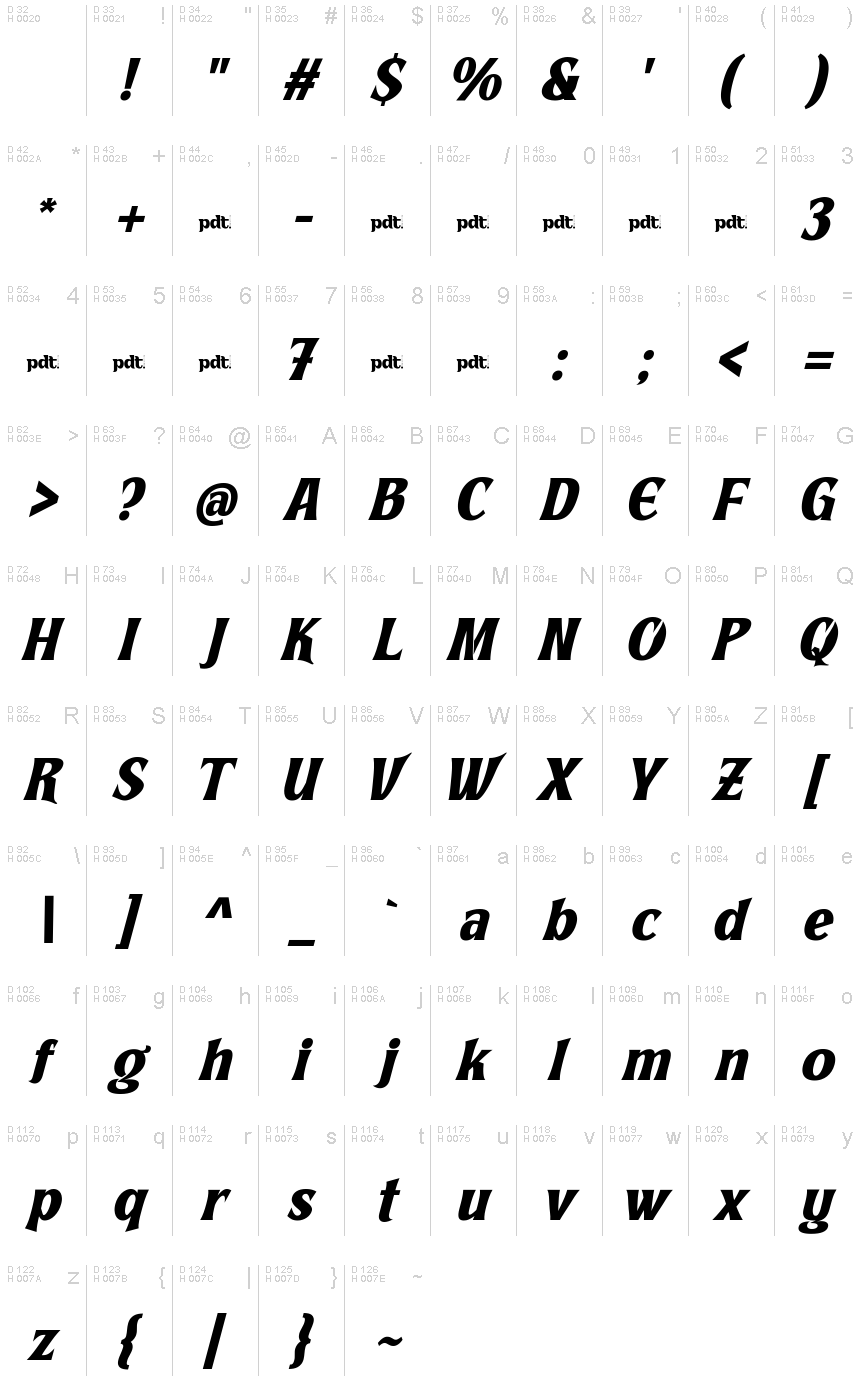
Agefin Regad Slant
Agefin Regad Slant font, part of the Agefin Regad family by productype, is a striking bold typeface perfect for making a statement. Its slanted design gives it an energetic and modern feel, while maintaining an elegant touch. The exaggerated boldness makes it ideal for headlines, logos, and branding materials where impact is key.
This free font download elevates design projects where attention to detail and aesthetic appeal matter. Its unique style allows for versatile applications in various creative contexts such as advertising campaigns, book covers, or digital media graphics. With Agefin Regad Slant font, designers can effortlessly convey sophistication and dynamism in their work.